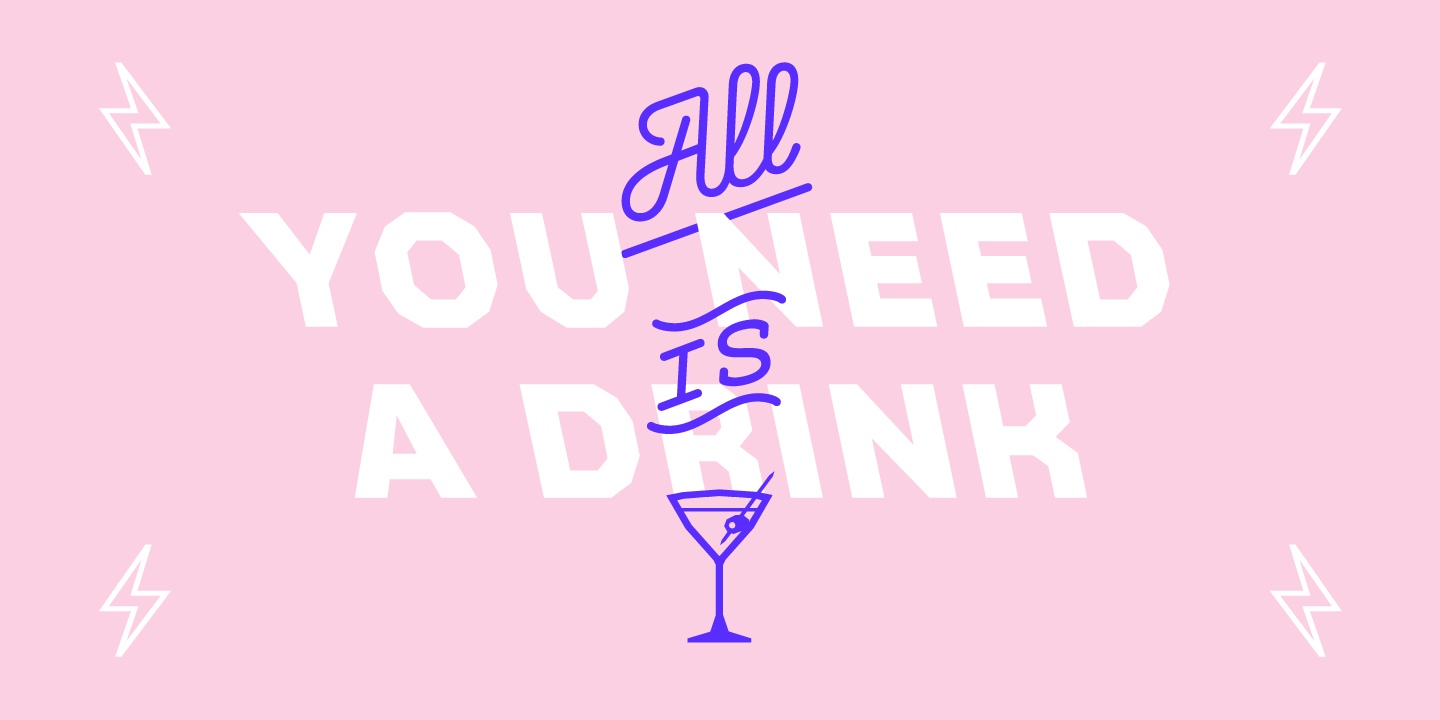
Bowie Font
Bowie Font is perfect for music industry branding, artistic performance promotions, creative agency identities, avant-garde fashion campaigns, cultural event materials, experimental design applications, rock venue signage, and innovative advertising projects. This revolutionary typeface works magnificently in both digital applications and print media where artistic innovation and creative rebellion are essential design elements.
What makes Bowie Font so exciting is its bold interpretation of artistic transformation and creative reinvention through dynamic letterforms that seem to shift and evolve with the same chameleon-like energy of legendary performers and artistic visionaries. The font features distinctive characters with experimental proportions, innovative curves, and avant-garde details that communicate artistic fearlessness, creative authenticity, and the transformative power of self-expression. Its revolutionary personality and artistic heritage make it ideal for brands seeking to establish creative leadership while appealing to audiences who celebrate individuality, artistic courage, and the boundary-pushing spirit of creative innovation.
The Bowie Font family includes multiple stylistic variations with different artistic intensities, along with experimental alternates and creative ornamental elements. Each style maintains the typeface's revolutionary character while offering comprehensive character sets including artistic numerals, creative punctuation marks, and special symbols designed to enhance artistic communications and innovative branding efforts across various creative contexts.
This extraordinary typeface represents the perfect fusion of artistic rebellion and contemporary design functionality for entertainment and creative industries. Whether you're developing music label identities, creating artistic performance materials, or designing creative agency campaigns, Bowie Font Free Download delivers the revolutionary spirit and versatility needed to inspire creative audiences. The font's artistic heritage makes it particularly effective for music venues, creative agencies, fashion brands, and businesses celebrating the transformative power of artistic expression and creative authenticity.
The carefully crafted artistic details and optimized creative performance in Bowie Font ensure both revolutionary authenticity and clear communication across all artistic applications. Its innovative presence makes it perfect for creative branding, artistic marketing materials, and experimental communications where its full revolutionary character can create unforgettable impressions and establish immediate association with creativity, innovation, and the fearless pursuit of artistic excellence.